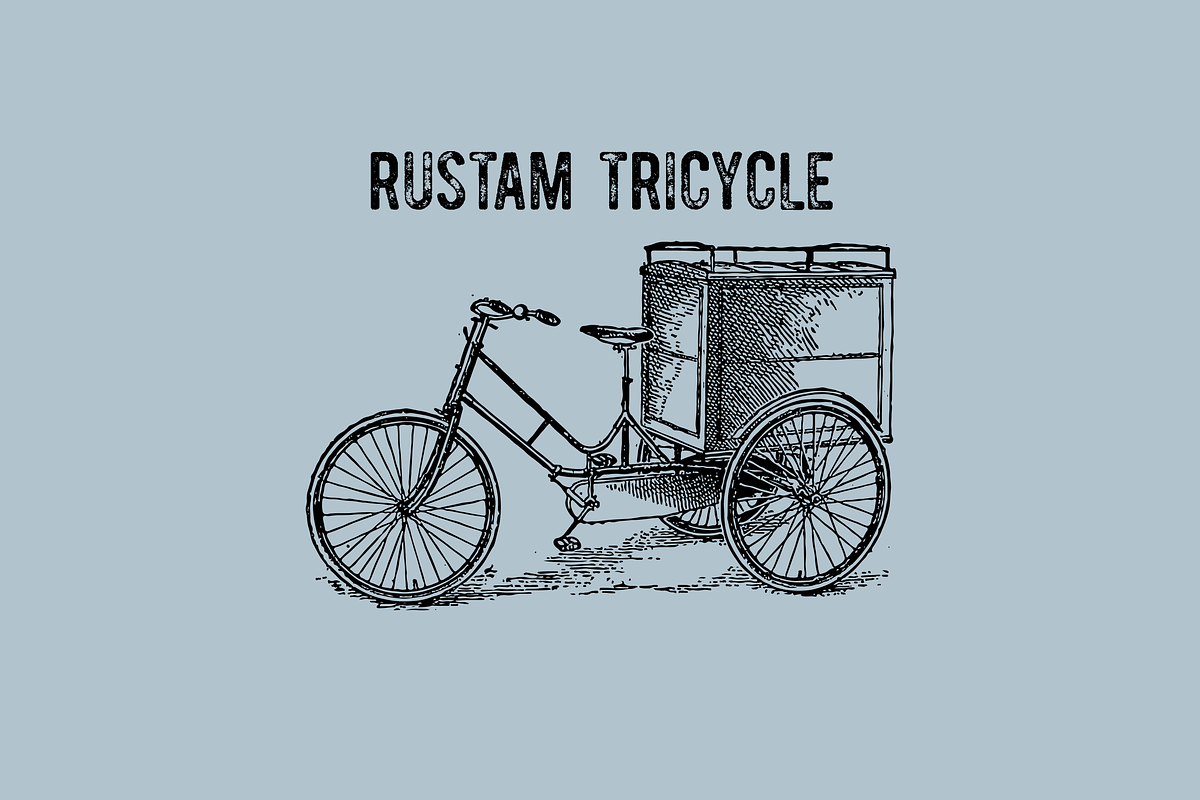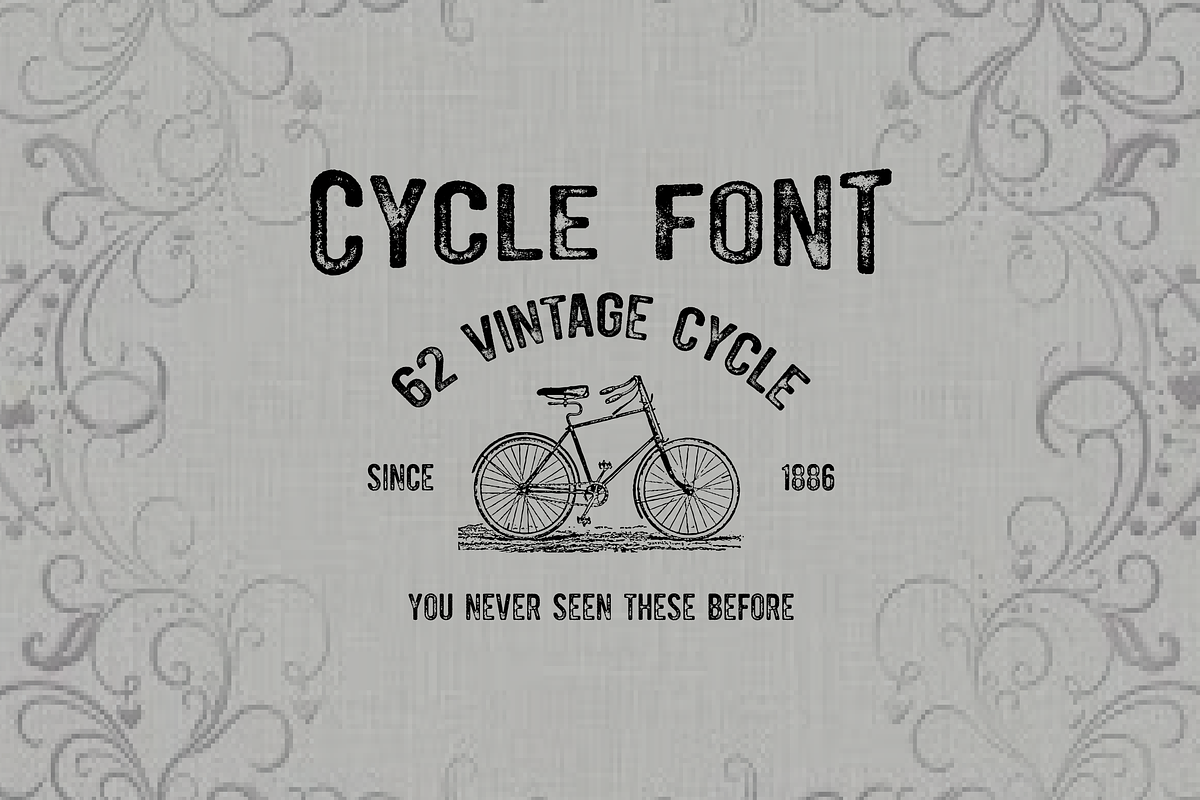
Cycle font-50% off
Cycle font-50% off by Jadugar Design Studio is a font selected for branding, posters, packaging, typography.
Why Cycle font-50% off is worth a look
Cycle font-50% off by Jadugar Design Studio fits naturally into Branding, posters, packaging, typography.